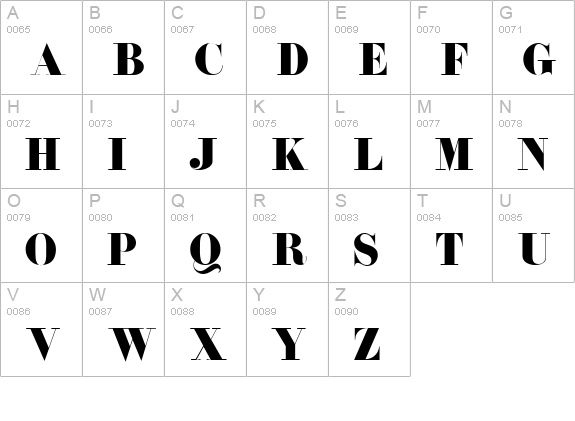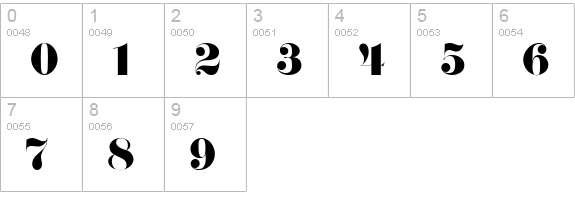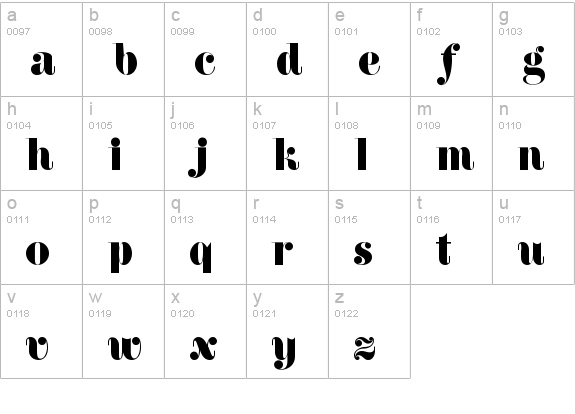
TR Firenze ITC is a classic and elegant font that exudes sophistication and style. Its timeless design makes it suitable for a wide range of projects, from branding to editorial design. The balanced letterforms and subtle serifs give TR Firenze ITC a refined and polished look that will elevate any design it is used in. What's even better is that TR Firenze ITC is available for free download at FontsMarket.com. This means you can easily access this high-quality font without any cost, making it a valuable addition to your font collection. Don't miss out on the opportunity to enhance your designs with the beauty and versatility of TR Firenze ITC. Download it now and see the difference it can make in your projects.